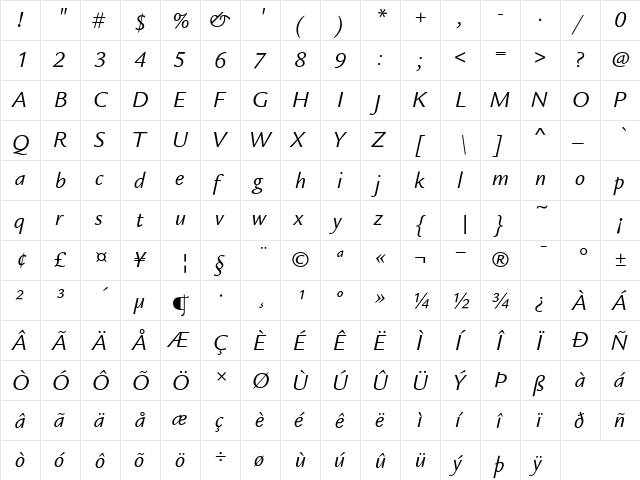
LegacySansITC-Book BookItalic Font Preview
LegacySansITC-Book BookItalic
Design Context for LegacySansITC-Book Typeface
LegacySansITC-Book offers clean, dependable letterforms without strong stylistic allegiance, making it a practical choice for designers who need flexibility. The slanted form adds forward momentum and visual energy.